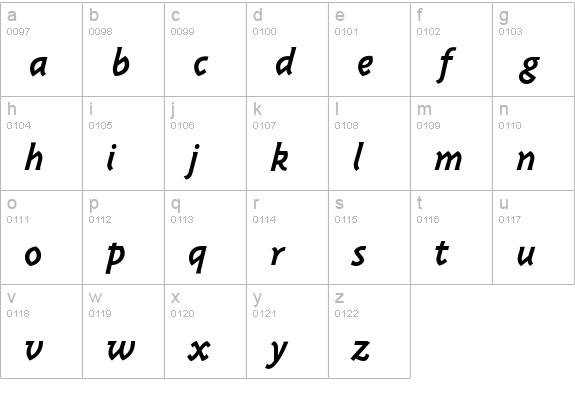
TriplexItalicBold Font Details
Introducing TriplexItalicBold, a captivating and stylish font that effortlessly merges the elegance of italics with the boldness of strong typography. This font exudes confidence and sophistication, making it the perfect choice for projects that require a touch of both flair and professionalism. TriplexItalicBold stands out with its unique combination of slanted letterforms and a bold weight, creating a visual harmony that commands attention. Its sleek curves and distinct strokes give each character a sense of movement, adding a dynamic and energetic vibe to any design. With its versatility, TriplexItalicBold can be used across a wide range of applications. Whether you're designing eye-catching logos, creating captivating headlines, or crafting engaging social media posts, this font will bring your creations to life with its distinctive charm. As part of our commitment to providing high-quality resources to designers and creatives, TriplexItalicBold is freely available to download at FontsMarket.com. This means that you can access this exceptional font without any cost, allowing you to unleash your creativity without limitations. Unlock the potential of your designs and elevate them to new heights with TriplexItalicBold. Its combination of italics and boldness will make a lasting impression, leaving your audience wanting more. Download TriplexItalicBold today from FontsMarket.com, and let your imagination soar.